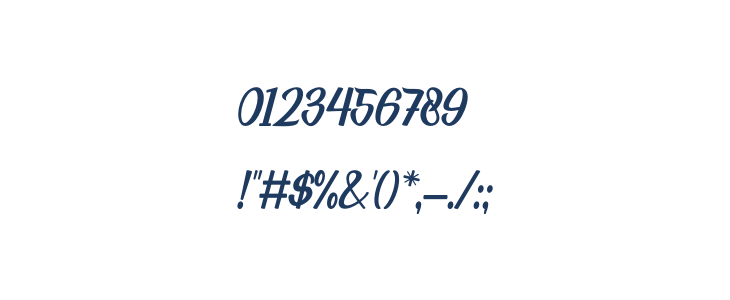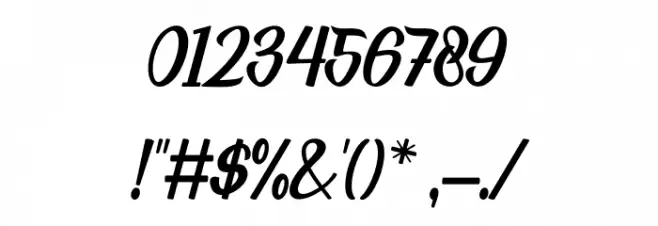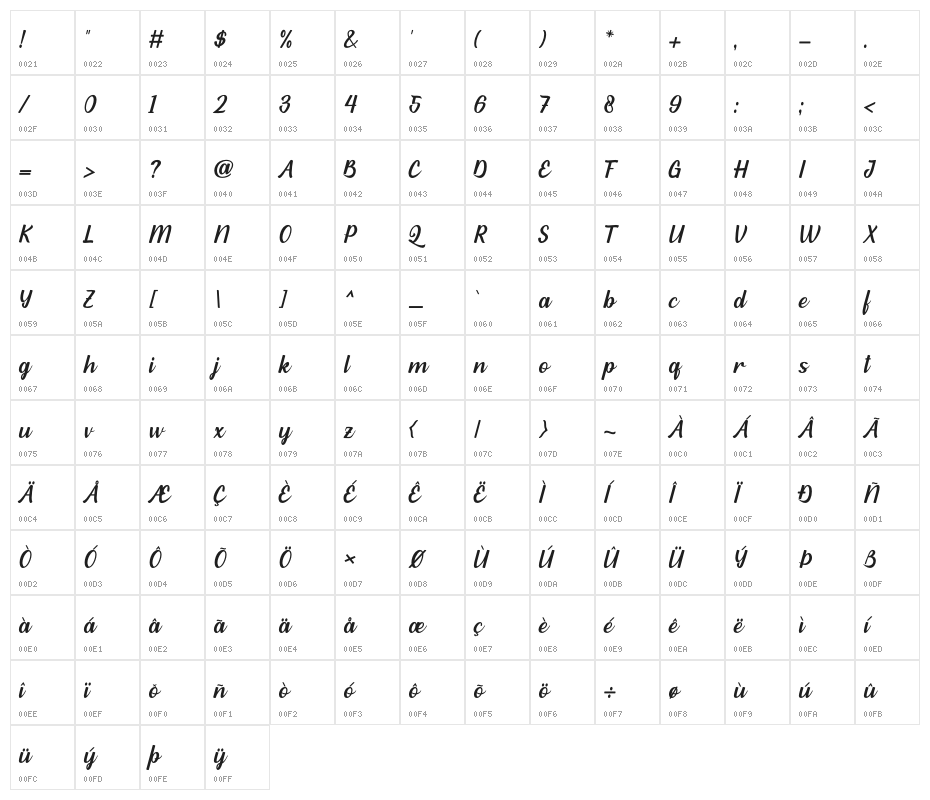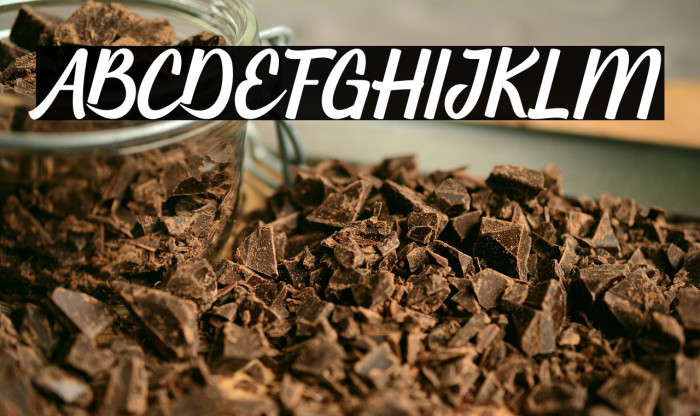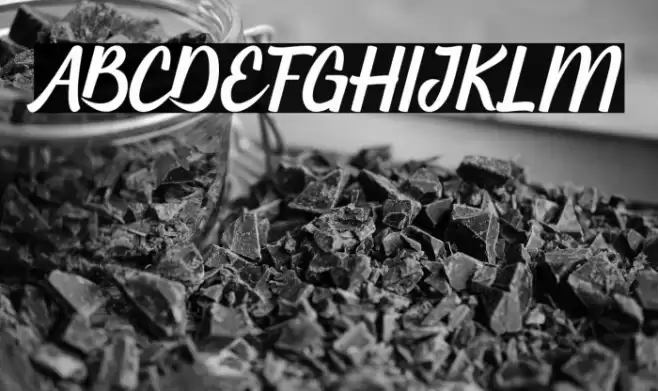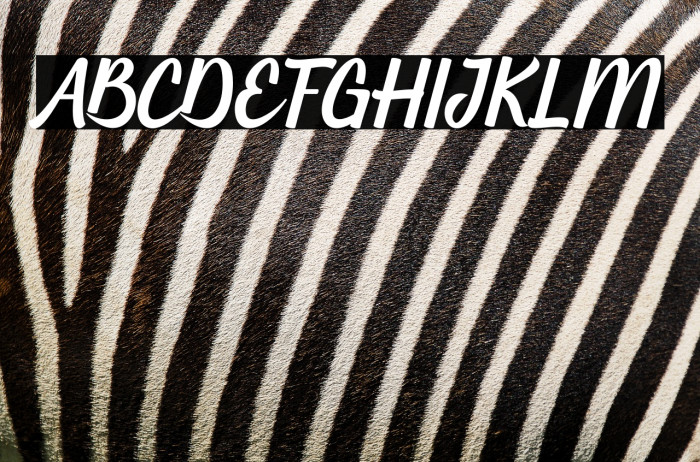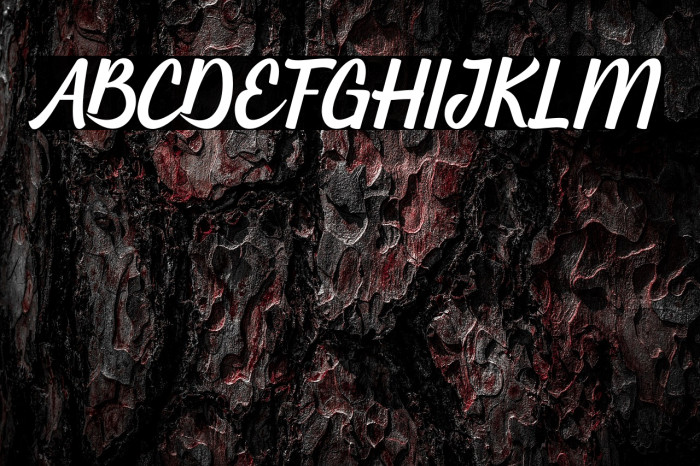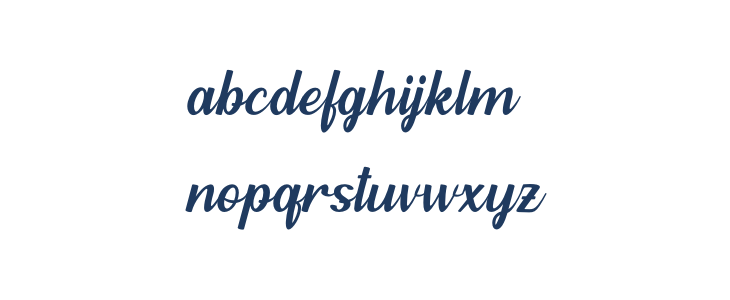
Habibie Font
Habibie Description
This font features a dynamic and flowing script style, characterized by its elegant and smooth curves. The letters are interconnected, creating a sense of continuity and movement. The uppercase letters are bold and prominent, while the lowercase letters maintain a consistent fluidity. The numerals are designed to match the overall script style, ensuring uniformity throughout. Special characters are seamlessly integrated, maintaining the font's cohesive appearance. This font exudes a sense of sophistication and creativity, making it ideal for projects that require a touch of elegance.